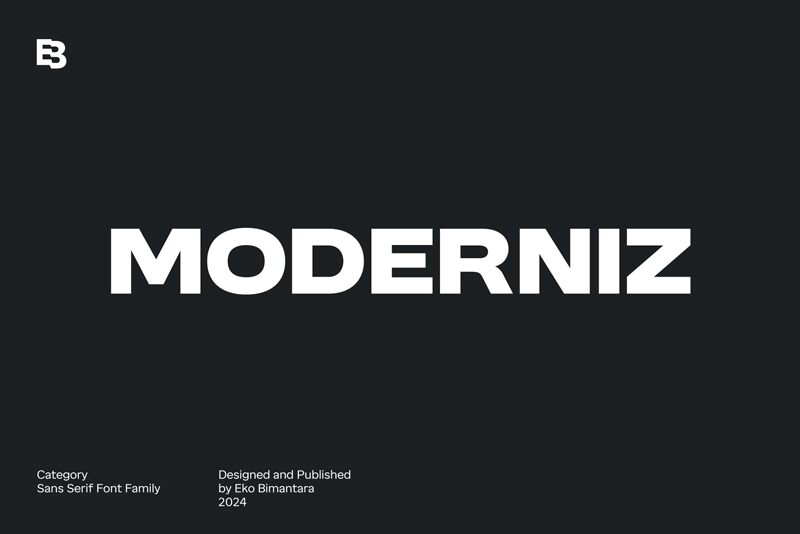
MODERNIZ
Moderniz is a striking sans serif font designed by Eko Bimantara. Its bold, expanded letterforms command attention, exuding a sense of strength and authority. The clean, geometric shapes and ample negative space create a sleek, contemporary aesthetic, making Moderniz an excellent choice for a wide range of design applications.
This versatile font shines in headlines, titles, and impactful display text. Its bold presence lends itself well to branding, advertising, and editorial design, where it can effectively capture the reader's eye and convey a sense of modernity and confidence. Moderniz's expansive width also makes it a suitable option for large-scale applications, such as signage, posters, and outdoor campaigns, ensuring legibility and visual impact from a distance.